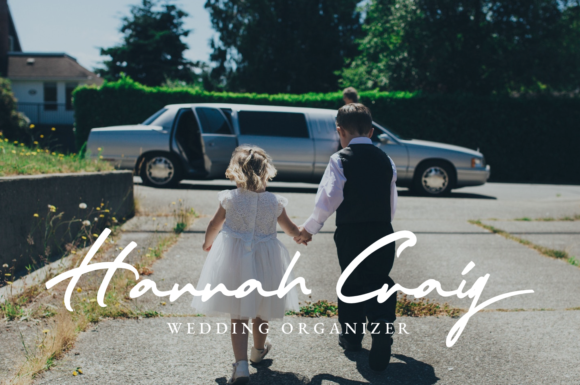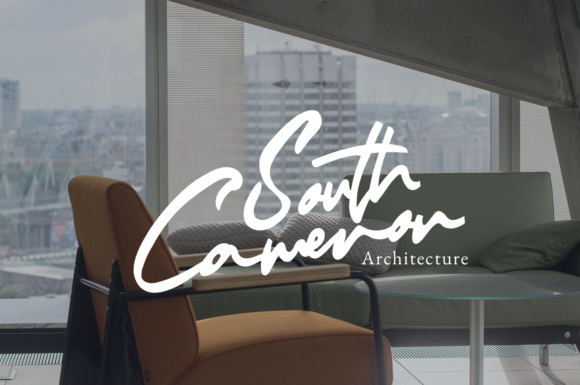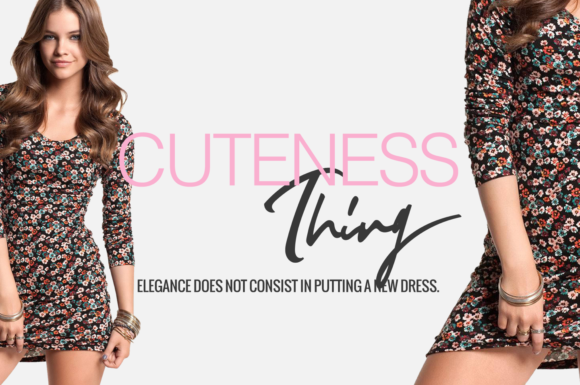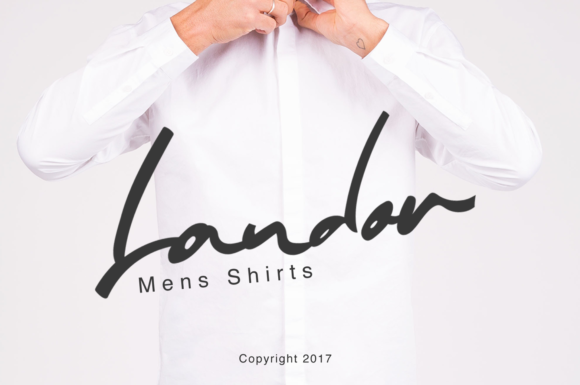
Winifred Font
About Winifred Font
Winifred is a modern signature font with a handwritten style and smooth movements. It will elevate any design project to the highest level!